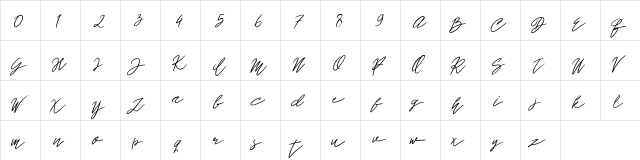
John Bulgarry Font Preview
| Foundry | Cundrawan |
| Designer | Cundrawan |
Design Context for John Bulgarry Typeface
John Bulgarry is a composed and adaptable typeface that performs quietly and consistently across a wide range of design contexts.